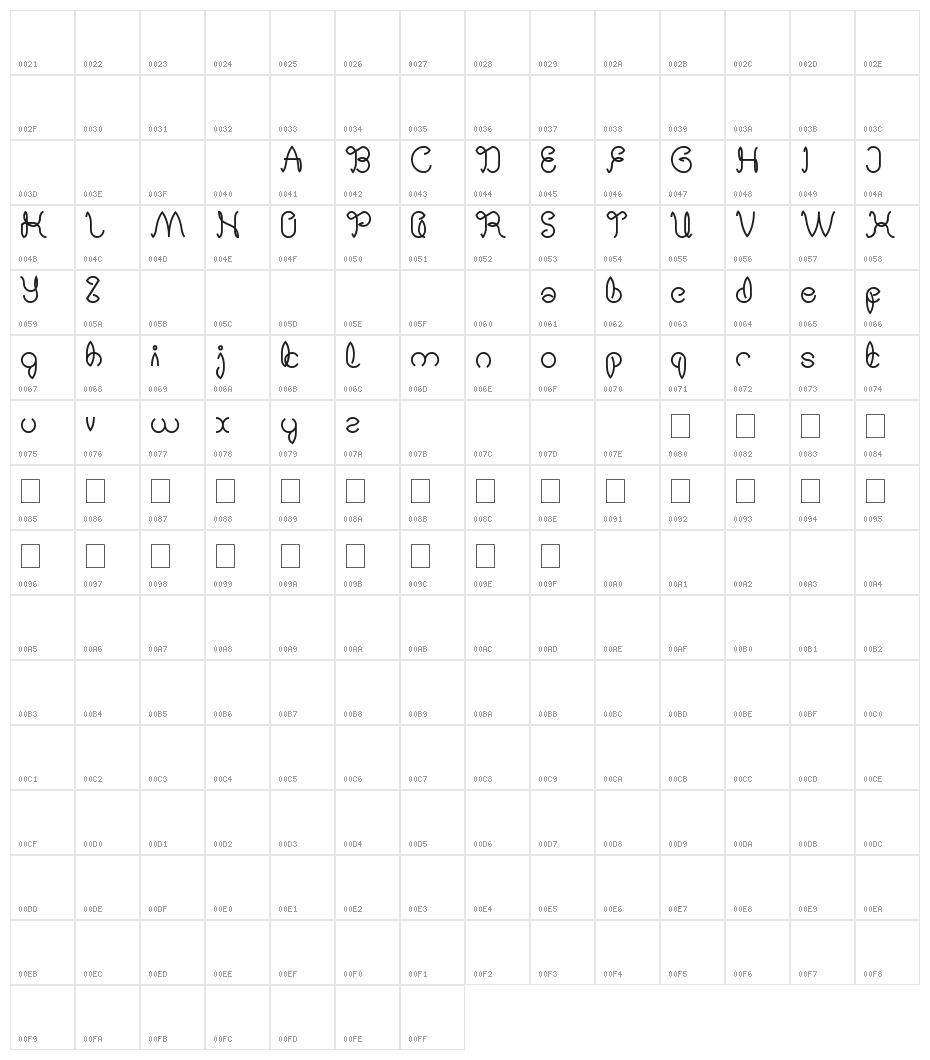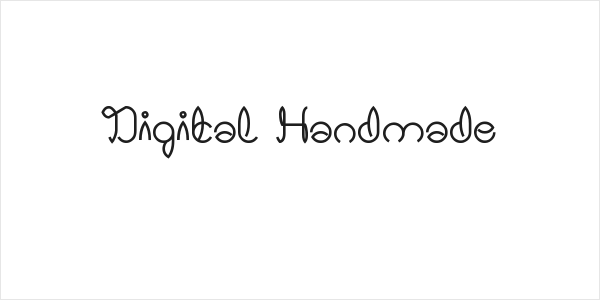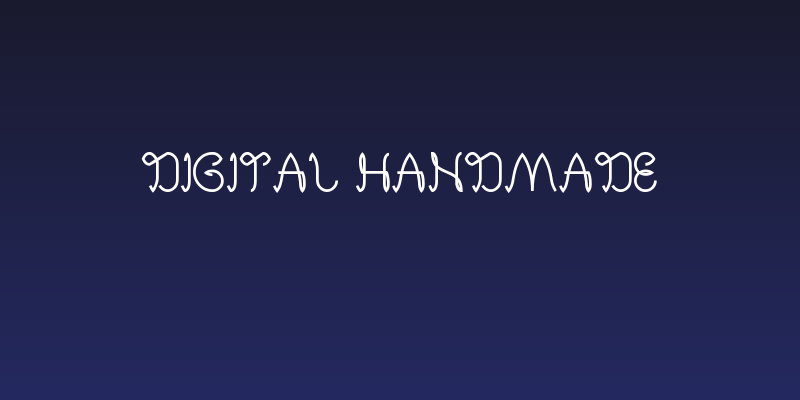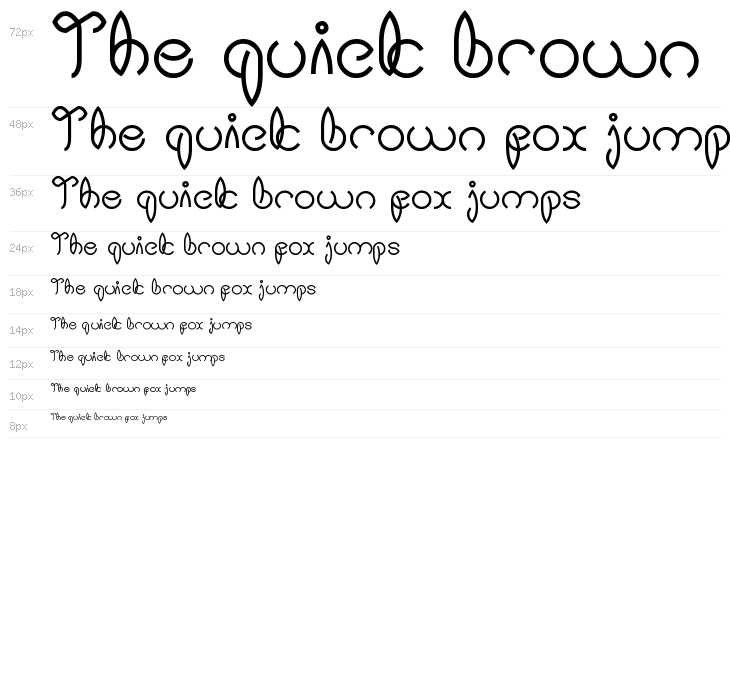
Digital Handmade Font
Digital Handmade Description
This font features a unique blend of digital precision and handmade charm, characterized by its flowing, interconnected letterforms. Each character exhibits a playful and artistic style, with loops and curves that give it a whimsical appearance. The uppercase letters are bold and striking, while the lowercase letters maintain a consistent, flowing rhythm. The overall design is reminiscent of calligraphy, yet maintains a modern twist with its clean lines and balanced proportions. This font is perfect for projects that require a touch of elegance and creativity, making it suitable for artistic endeavors, invitations, and branding that seeks to stand out with a distinctive flair.